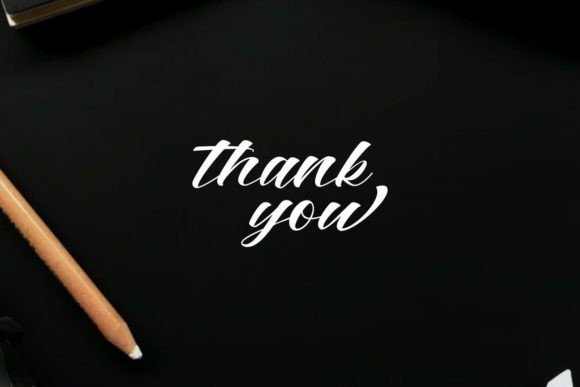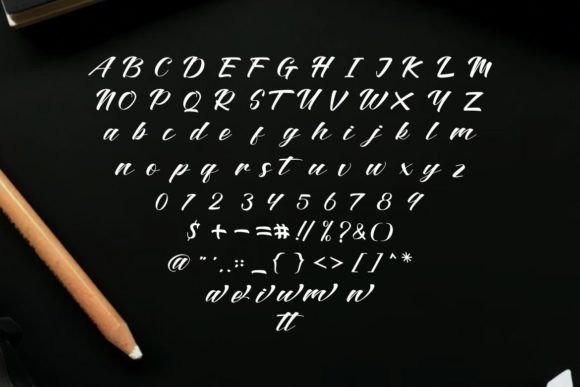
About Maqine Yunita Font
“Maqine Yunita” is a one-of-a-kind and refined handwritten font that offers a distinct and elegant style, making it a superb choice for enhancing a wide range of design projects with a personalized and sophisticated touch.
This font’s uniqueness lies in its elegant and distinctive letterforms, which set it apart from more common typefaces. The graceful and flowing characters of “Maqine Yunita” lend a sense of charm and refinement to your text, making it particularly suitable for projects that demand a personalized and elegant aesthetic.
“Maqine Yunita” shines in various design applications, including but not limited to wedding invitations, thank you cards, greeting cards, and logos. Its ability to convey a sense of sophistication and uniqueness makes it a valuable asset for any project where an elegant and personalized style is desired.
Whether you’re crafting materials for a special occasion, such as a wedding or a memorable event, or creating a brand identity that exudes class and distinction, “Maqine Yunita” can help you achieve the desired look and feel. It adds a touch of sophistication and personalization to your text, making it memorable and engaging.
The font’s versatility also makes it suitable for both print and digital design projects, ensuring that it can be applied to a wide range of contexts. “Maqine Yunita” enables you to create visuals that convey a sense of elegance and individuality, leaving a lasting impression on your audience.
Incorporating “Maqine Yunita” into your design projects allows you to infuse a sense of sophistication and uniqueness into your typography. Its refined and distinct character makes it an excellent choice for adding a touch of elegance and personalization to your next creative endeavor, ensuring that your designs stand out with style and grace. Embrace the elegance of “Maqine Yunita” in your next project, and let it elevate your designs to a new level of sophistication and beauty.